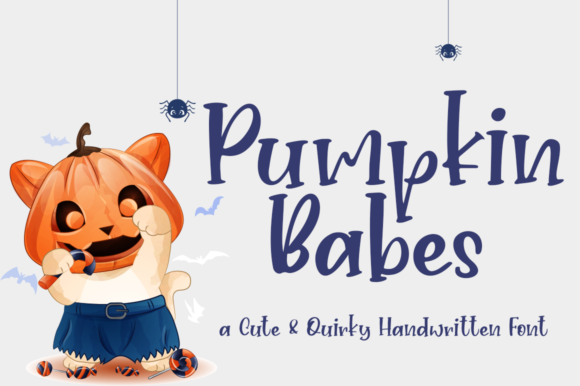
Welcome to the realm of Pumpkin Babes Font – a whimsical and enchanting display font that sparks joy and ignites creativity! Step into a world where letters dance and characters come alive, inviting you to embark on a delightful journey of design.
Picture this: A font so irresistibly charming, it will make your designs the talk of the town. Its playful curves and quirky strokes exude a sense of lightheartedness that is simply contagious. Whether you're crafting logos, branding materials, or eye-catching social media posts, Pumpkin Babes Font adds a touch of magic to every project.
Immerse yourself in the world of Pumpkin Babes Font, where imagination knows no bounds. This display font is your gateway to creating designs that resonate with your audience on a deeper level. Its friendly and trendy vibe makes it the perfect choice for projects targeting children, families, and anyone who appreciates a playful aesthetic.
With Pumpkin Babes Font, you'll discover a font that's as versatile as it is captivating. Its playful nature lends itself beautifully to invitations, greeting cards, and party decorations. Unleash your creativity and let your designs take center stage.
And for those who love to make a statement, Pumpkin Babes Font is your secret weapon. Its unique style and eye-catching details demand attention, ensuring your designs stand out from the crowd. Whether you're creating posters, flyers, or website banners, this font will leave a lasting impression.
Join the growing community of designers who have fallen in love with Pumpkin Babes Font. Its charm, versatility, and playful spirit make it a must-have for any creative toolbox. Embrace the magic of Pumpkin Babes Font today and let your designs blossom with joy!